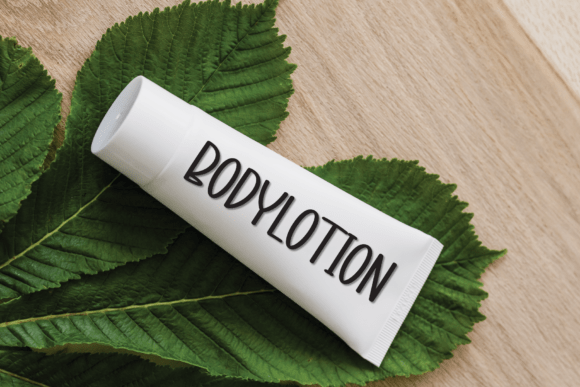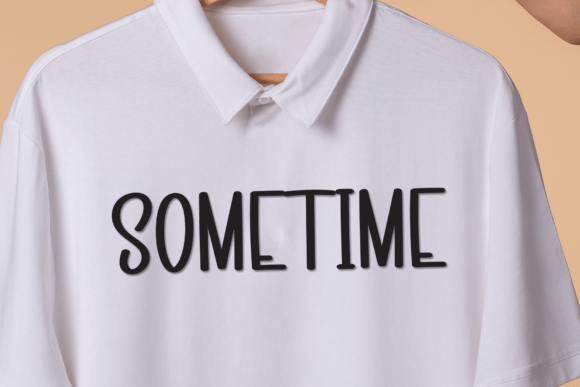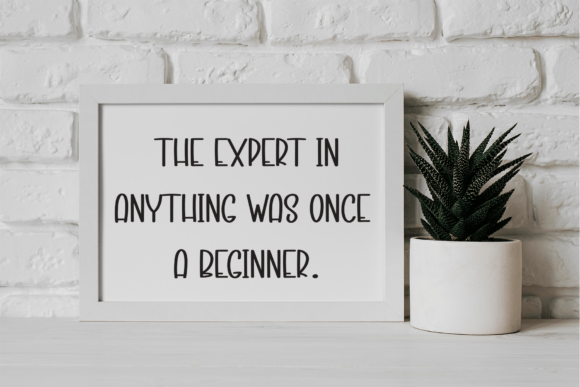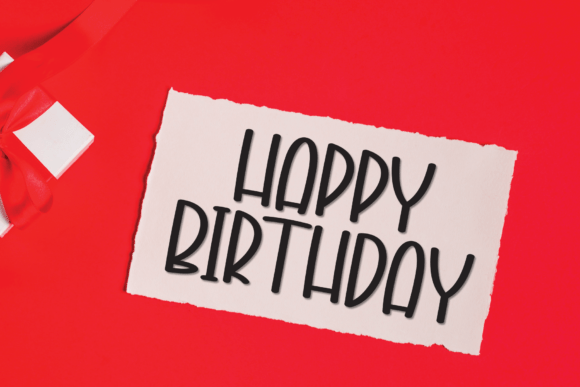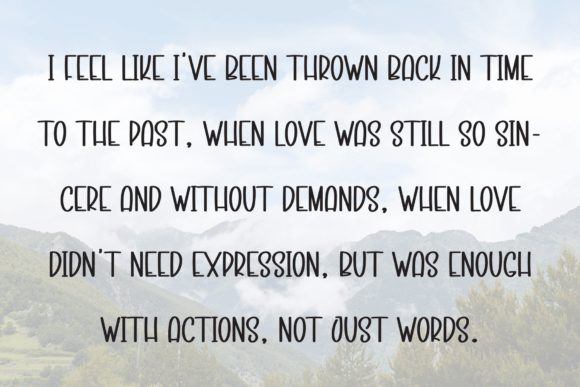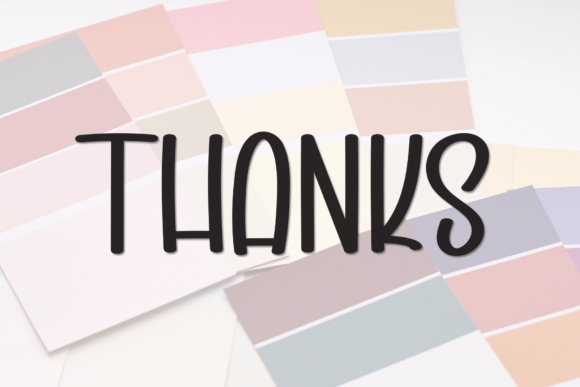
Introduction to Color Scheme Font Font
Fonts play a crucial role in design, and the Color Scheme Font font is a typeface that brings both character and versatility to any project. Whether you’re working on a branding project, a website, or a print design, the Color Scheme Font font offers a unique style that can elevate your work.
Color Scheme font presents a bold, monoline aesthetic with tall, condensed letterforms that create a clean yet expressive visual rhythm.
Its uniform stroke weight lends a modern, confident tone, while the slightly rounded terminals soften the overall impact The font maintains excellent vertical balance, with smooth curves and flat baselines giving it a friendly, grounded feel.
The Color Scheme Font font is more than just a typeface – it’s a design tool that helps you communicate your message with style and clarity. Its unique character set and versatile design make it suitable for a wide range of applications, from elegant invitations to bold headlines.
With its carefully crafted letterforms and balanced proportions, the Color Scheme Font font ensures readability and visual appeal across all mediums.
What makes Color Scheme Font font special?
The Color Scheme Font font stands out with its unique design, exceptional readability, and versatility across various design applications.